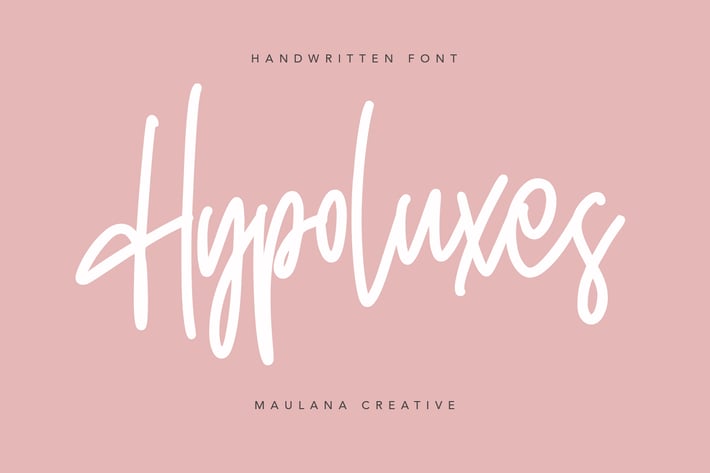
Hypoluxes Handwritten Signature Brush Typeface
Give your designs an authentic handcrafted feel. "Hypoluxes" is perfectly suited to signature, stationery, logo, typography quotes, magazine or book cover, website header, clothing, branding, packaging design and more.